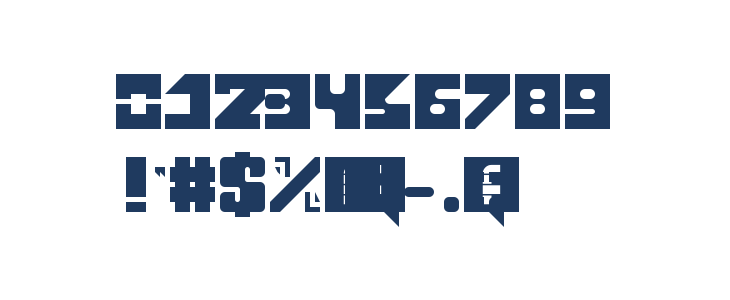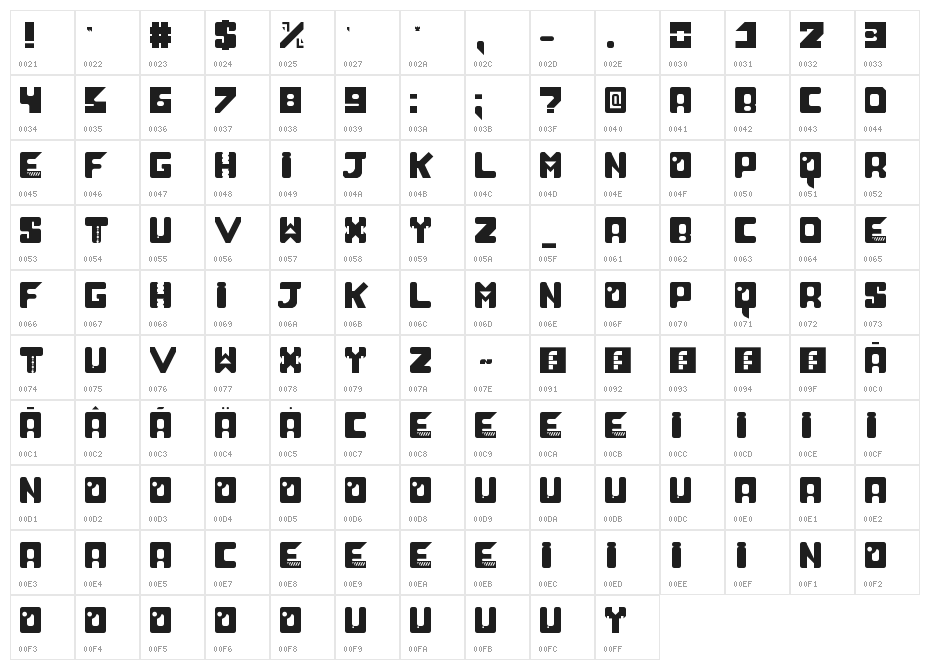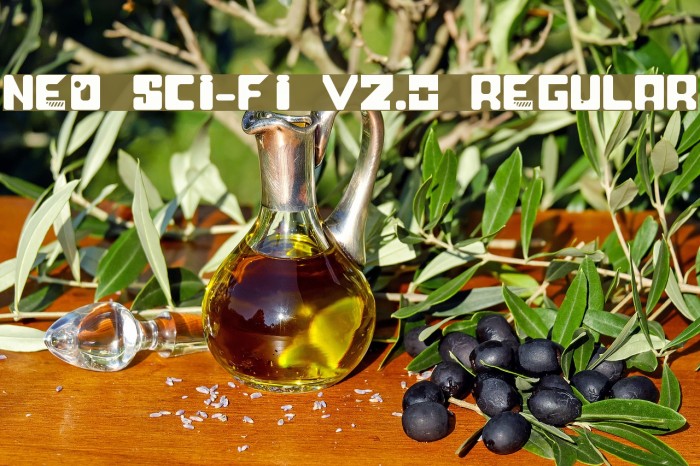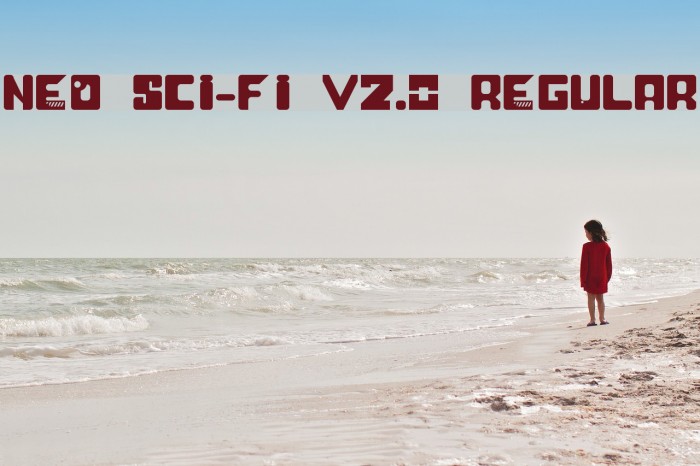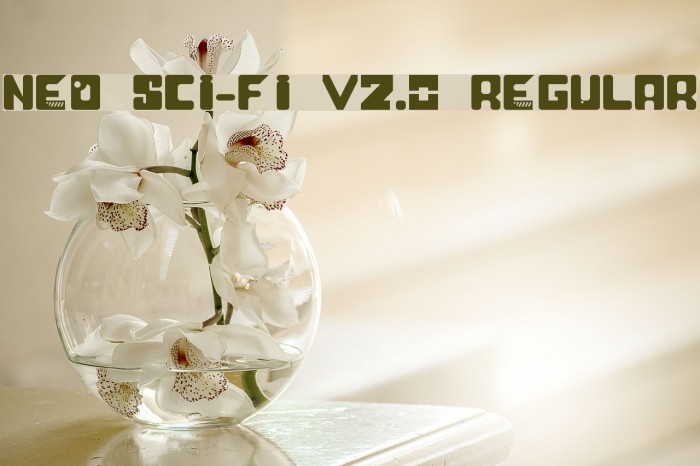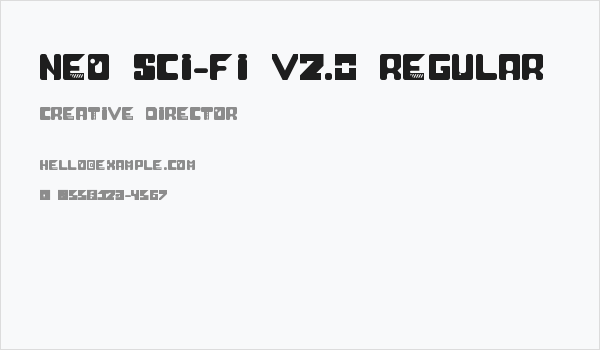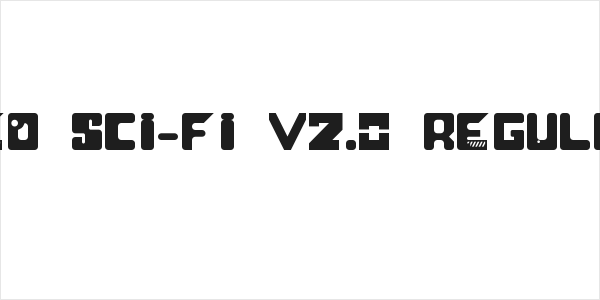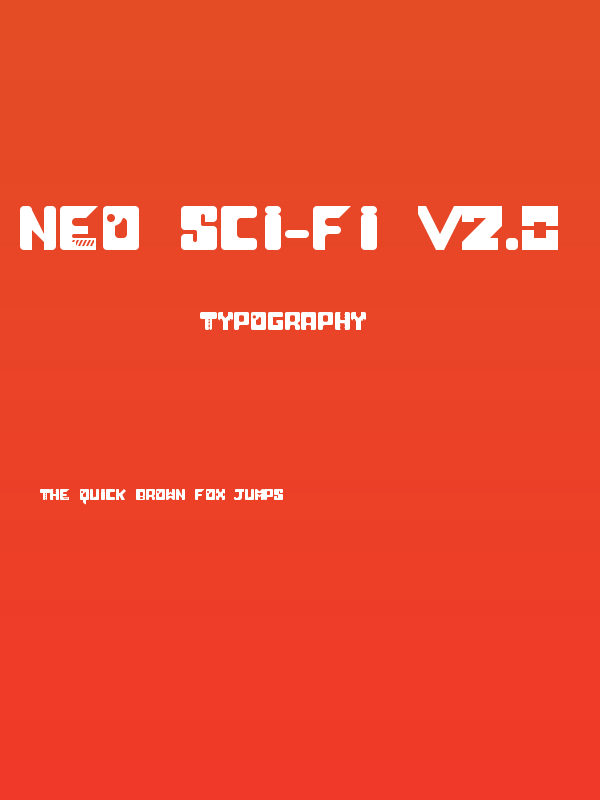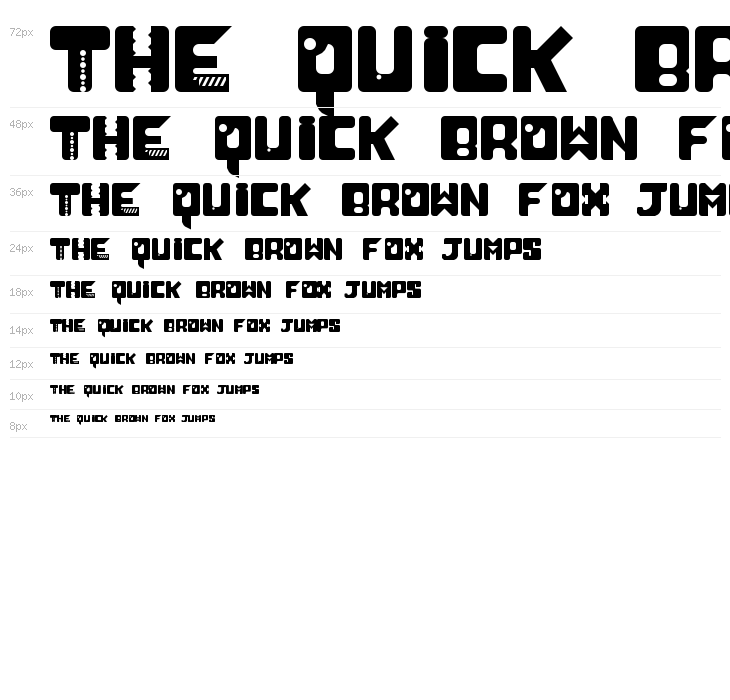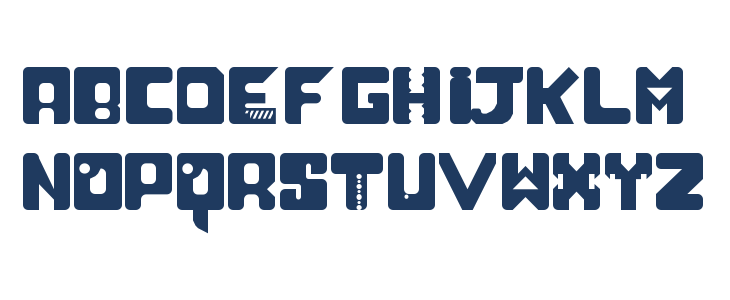
Neo Sci-Fi v2.0 Regular Font
Neo Sci-Fi v2.0 Regular Description
This font features a bold, futuristic design with a strong geometric influence. The characters are blocky and robust, incorporating unique cutouts and patterns that give it a sci-fi aesthetic. The uppercase and lowercase letters maintain a consistent style, with angular edges and a solid presence. Numbers and special characters follow the same design principles, ensuring uniformity across all glyphs. The font's distinct style makes it ideal for projects that require a modern and technological feel.
| Proposed Projects | Ideal for sci-fi themed posters, video game titles, tech branding, and futuristic designs. |